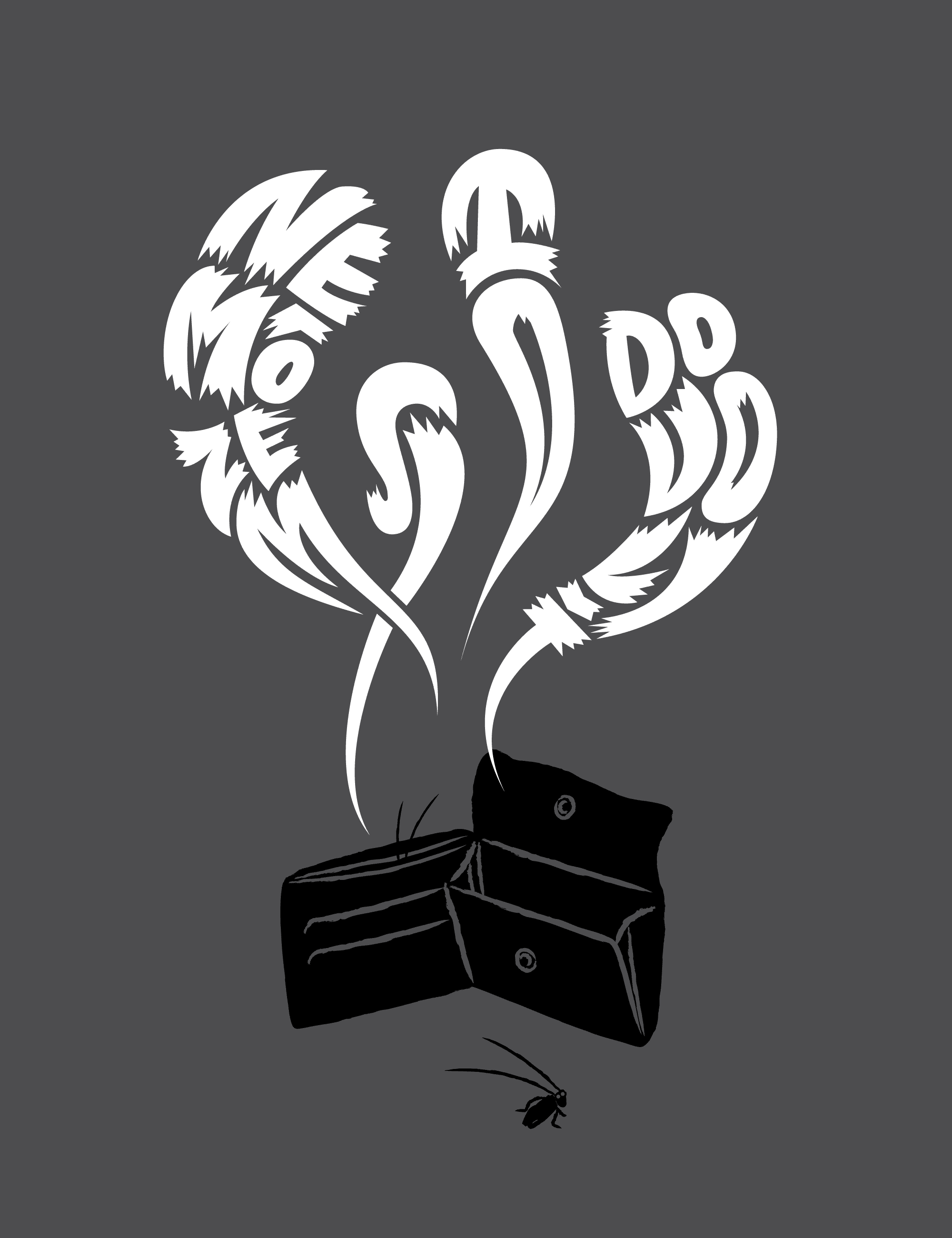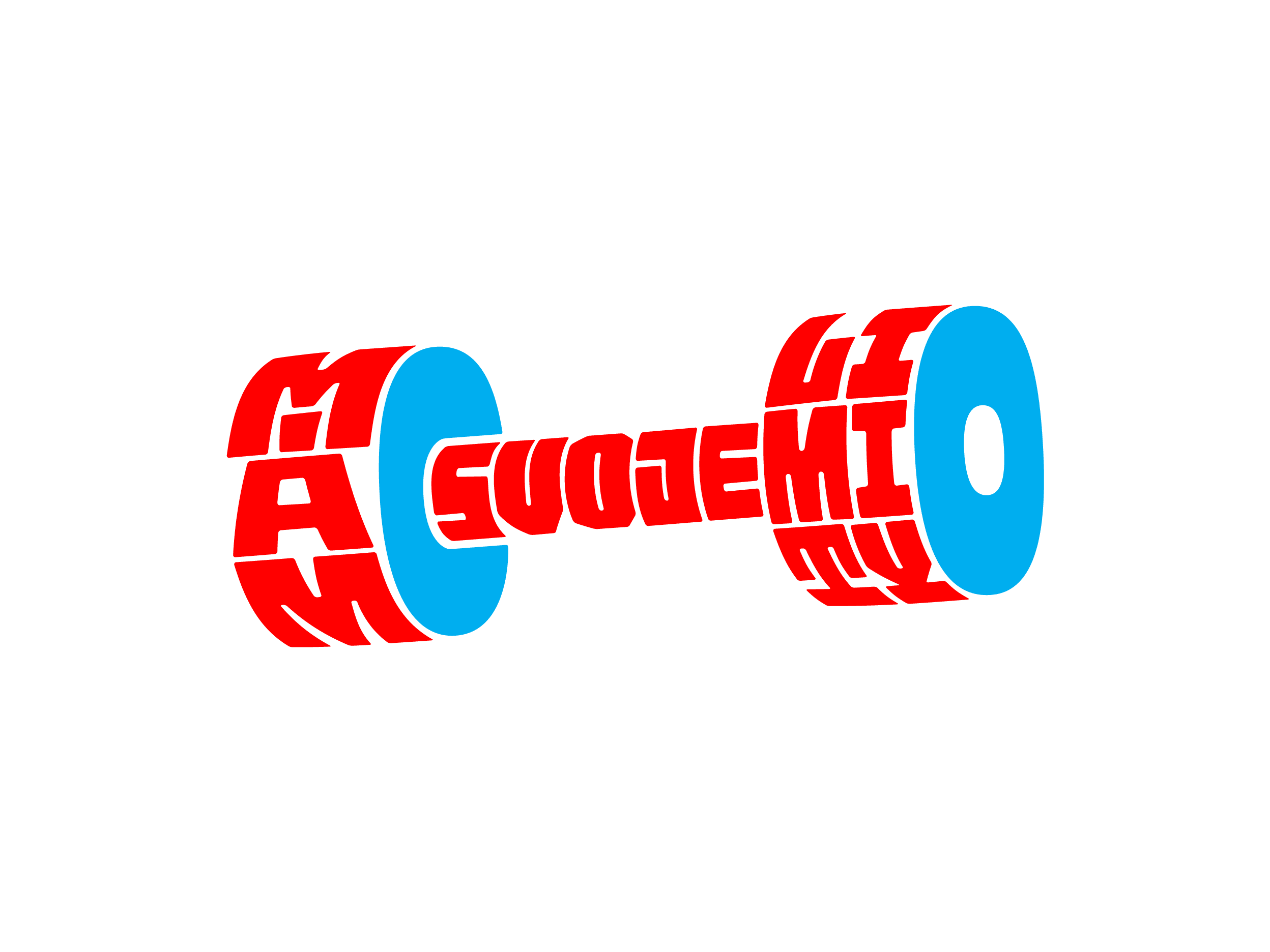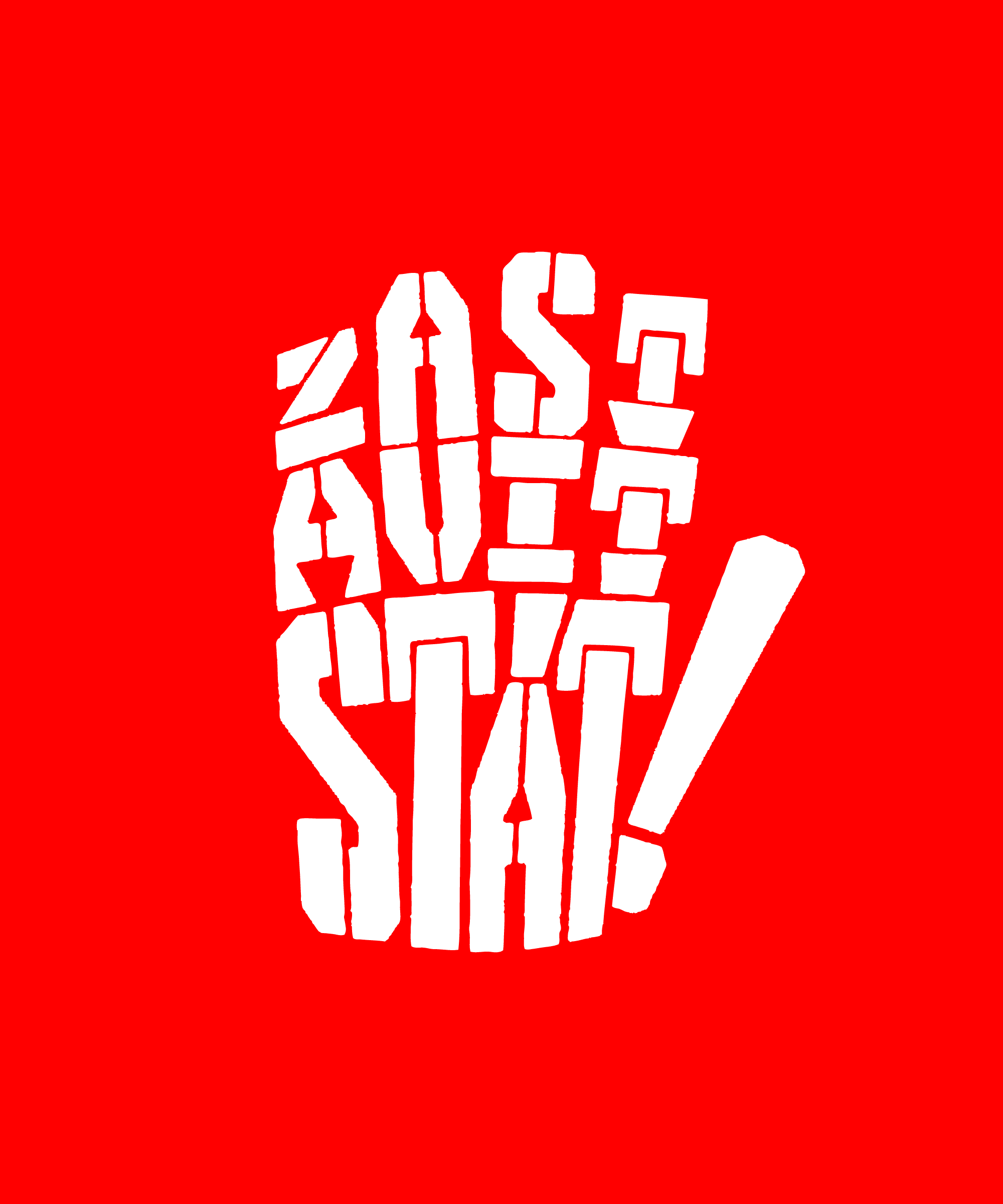
Bizarrepublic T-shirts
A series of letterings for Bizerrepublic, SK t-shirts.
Freeze/Stop The Government
The lettering has two different meanings, depending on which diacritic marks you can spot.
I Can’t Afford It
I Have My Limits